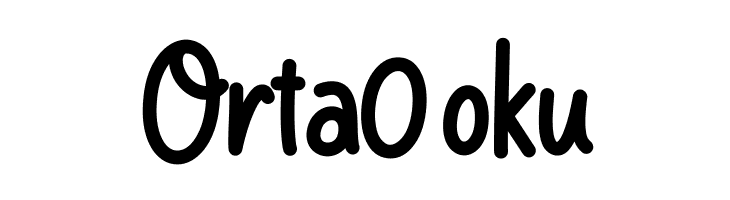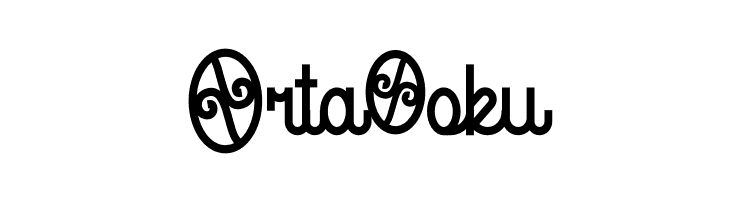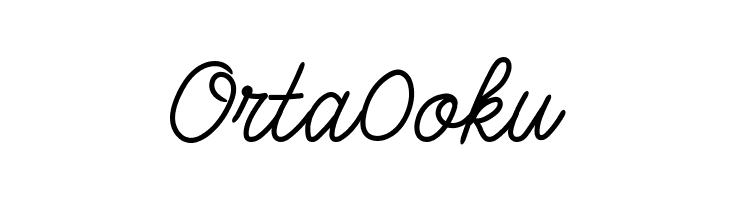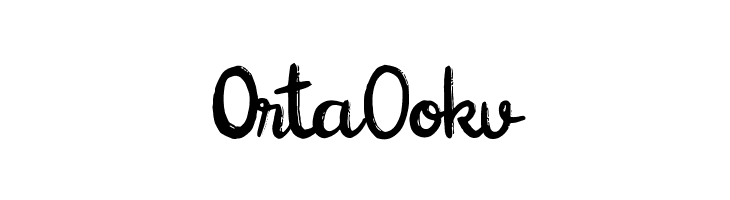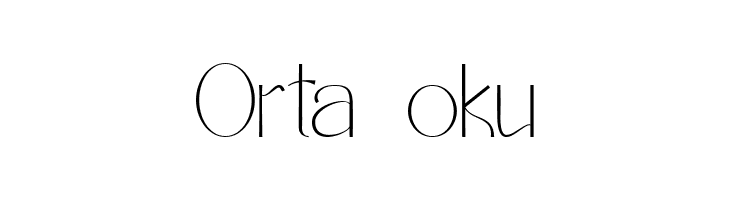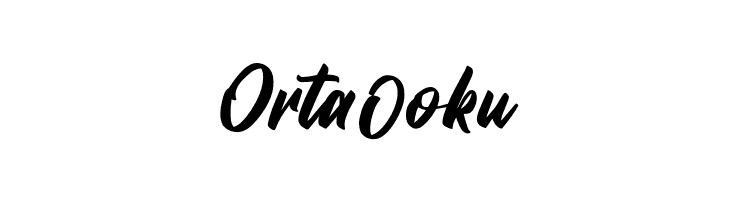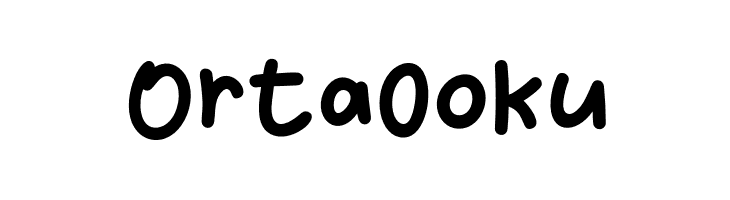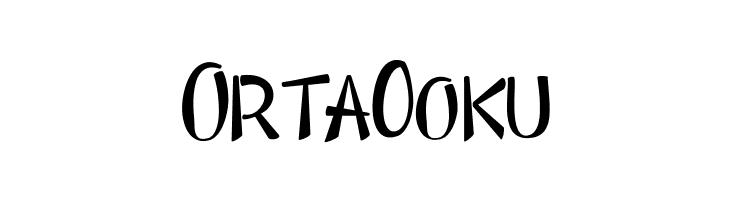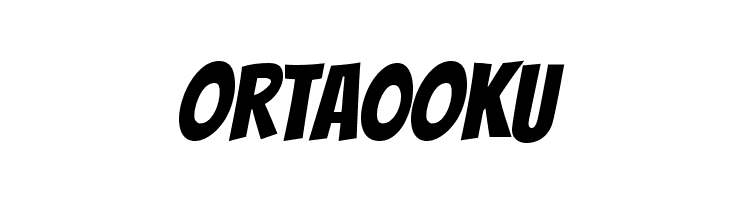
• Bang 4 Ya Buck
A bold, distressed font with a grunge texture and tight spacing.
• Bang Bang
• Bang Tamvan
A playful, bold handwritten font with rounded, informal letterforms.
• BangBang Cute Brush Font
A playful brush-style font with bold, dynamic strokes and a hand-painted appearance.
• Bangela
A bold, cursive font with a dynamic and flowing style.
• Bangers
A bold, slanted, and energetic font with a playful style.
• Bangfel
A modern, elegant font with thin, elongated letterforms and high contrast strokes.
• Bangilan
A decorative font with intricate swirls and flourishes, perfect for artistic projects.
• bangkar
An elegant script font with smooth, flowing lines and a sophisticated appearance.
• bangkey
A playful, casual script font with smooth curves and rounded edges.